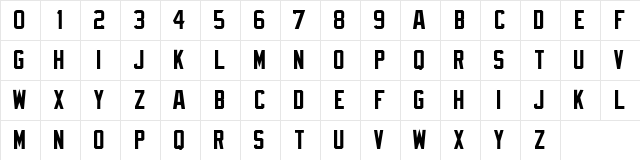
Complete NFL Texans Regular glyph index. Displaying only characters natively supported by NFL Texans Regular font.
NFL Texans is a composed and adaptable typeface that performs quietly and consistently across a wide range of design contexts.